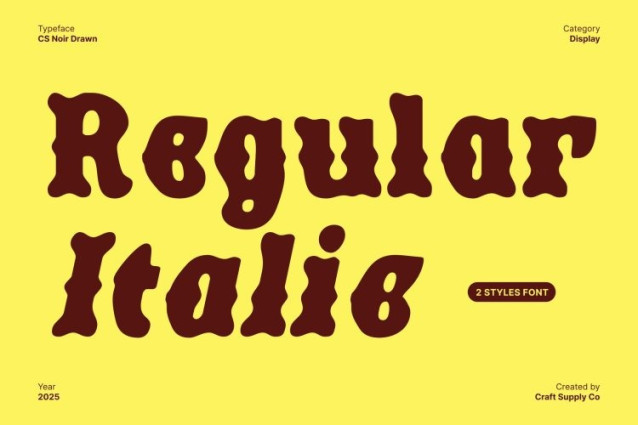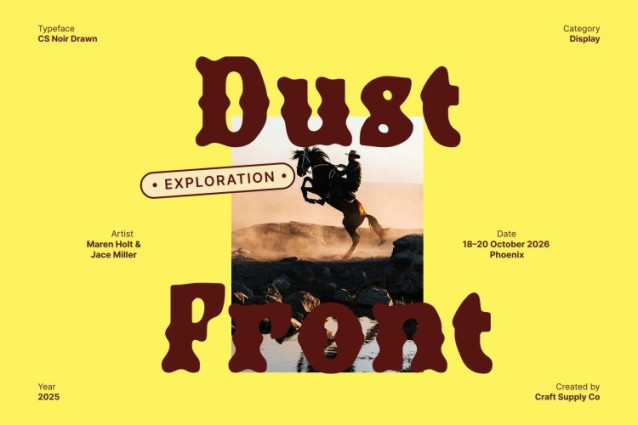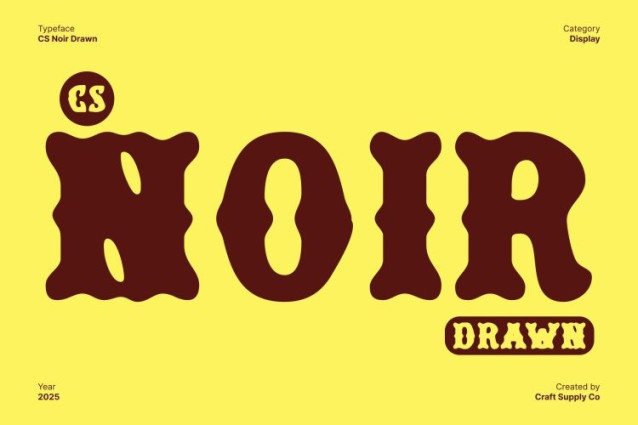
CS Noir Drawn Font
CS Noir Drawn Font This font merges the classic of a Tuscan display font with a subtle hand-drawn effect, giving each letter a unique, handcrafted personality. Its intricate details create a bold yet soft impression, perfect for designs that demand attention and sophistication.
Perfect for Titles and Headlines
With its dramatic and distinctive shapes, excels in titles, headlines, and focal text. The combination of strong Tuscan serifs and drawn textures ensures your text stands out, making every word visually compelling while remaining highly readable.
Evokes Historical Significance
Inspired by historical typefaces, carries a sense of timelessness and heritage. It’s ideal for projects that explore the past, reinterpret classic styles, or convey a bold narrative that challenges tradition with a modern hand-crafted touch.
Versatile for Creative and Impactful Designs
This font adapts seamlessly to a variety of design applications, from editorial layouts and posters to branding and packaging. Its bold, soft, and historically inspired style provides a perfect balance of elegance, character, and visual impact, making it a go-to choice for designers seeking both originality and sophistication.